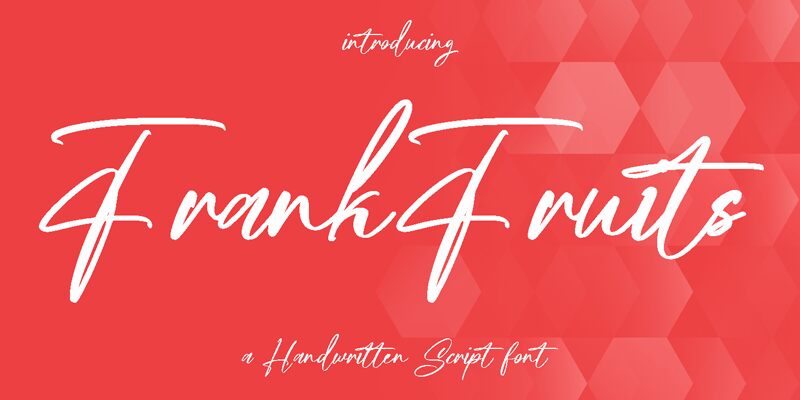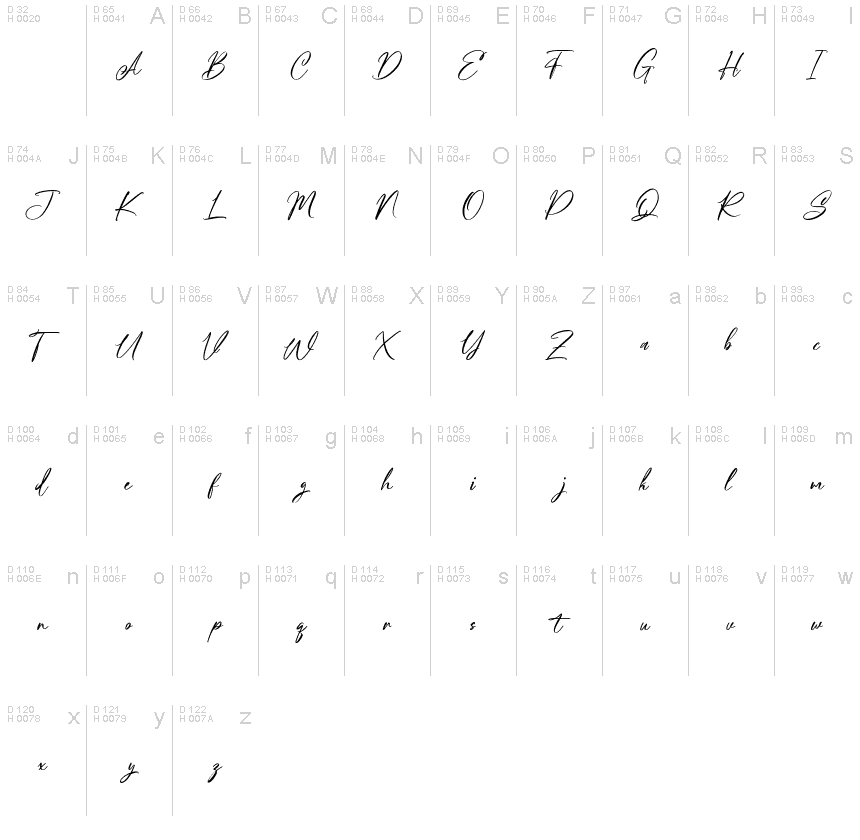
Frankfruits Free Regular
Frankfruits, a stunning handwritten signature font designed by Maulana Creative, is a perfect fit for any project that requires an elegant and personal touch. With its semi-light weight and flowing strokes, this font exudes sophistication and charm. Its versatility makes it suitable for various projects such as wedding invitations, branding materials, packaging design, social media graphics, and more. Frankfruits offers a unique blend of professionalism and creativity that will elevate your projects to the next level. Use this font to add a touch of class to your designs and leave a lasting impression on your audience.